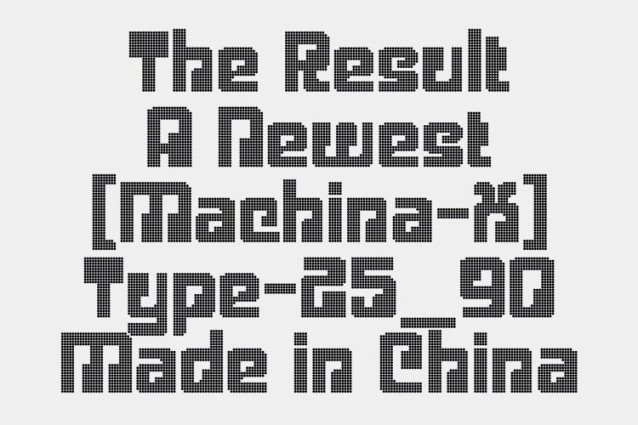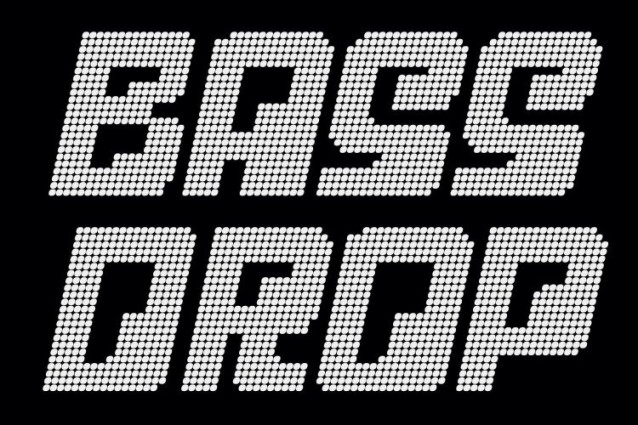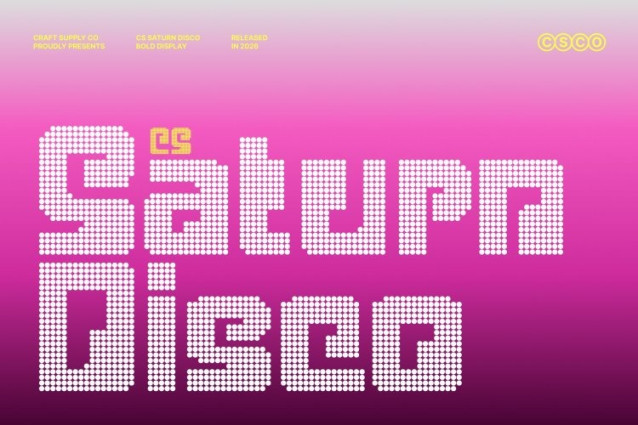
CS Saturn Disco Font
CS Saturn Disco Font – This font reimagines the original bold, blocky tech font as a vibrant dotted display font. Each character is composed of circular dots that reflect the dynamic energy of a disco floor, giving the typeface a glowing, techno-inspired personality. The blocky geometry remains intact, but the dot pattern adds sparkle, rhythm, and movement, perfect for designs that want to combine futuristic strength with playful flair.
Futuristic Tech Feel with Dotted Energy
The thick, structured shapes of this font are preserved, while the dot construction introduces a lively, almost neon-like texture. This effect amplifies the bold presence of the typeface while conveying motion and modernity, making it ideal for digital-first designs, music visuals, or futuristic branding campaigns.
Dynamic and Playful with High Impact
By combining sharp techno edges with rhythmic dots, this font delivers a strong visual punch without losing readability. The dotted forms create a cheerful, party-ready vibe that turns any headline, poster, or logo into a statement of energy, style, and innovation.
Ideal for Tech, Music, and Creative Campaigns
From electronic music posters and game interfaces to futuristic branding and social media graphics, this font thrives wherever bold impact and playful energy are needed. It bridges technology-inspired strength with disco-inspired fun, giving designers a versatile tool to energize modern projects.